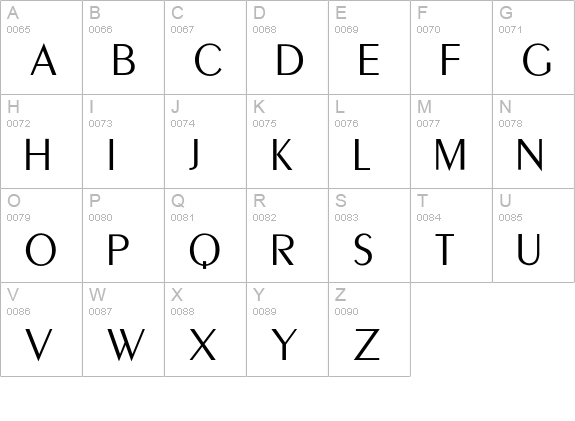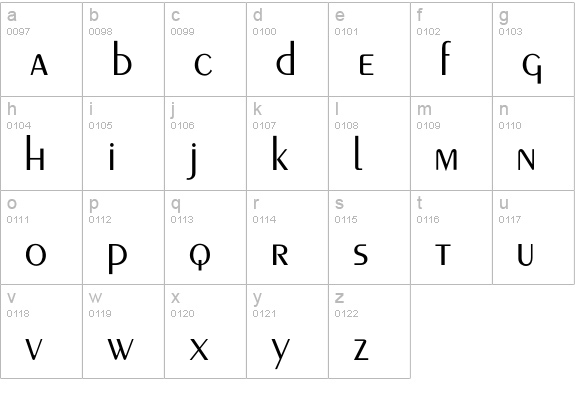
PianoLight Font Details
PianoLight font is a beautifully designed typeface that effortlessly combines elegance with simplicity. Its sleek and modern appearance makes it perfect for a wide range of design projects, from invitations and logos to website headers and book covers. Featuring clean lines and delicate curves, PianoLight font has a timeless appeal that will never go out of style. Its carefully crafted letterforms are legible at any size, ensuring that your message is conveyed clearly and effectively. One of the most appealing aspects of PianoLight font is that it is completely free. Yes, you read that right! This stunning font is freely available to download at FontsMarket.com. Whether you're a professional designer or a hobbyist, you can now have access to this remarkable typeface without breaking the bank. With PianoLight font, you can bring a touch of sophistication to your designs without sacrificing readability. Its subtle elegance adds a touch of class to any project, making it a versatile choice for a variety of creative endeavors. So why wait? Take advantage of the opportunity to download PianoLight font for free at FontsMarket.com and elevate your design game to new heights. With its timeless beauty and incredible versatility, this font is sure to become a staple in your typographic arsenal. Don't miss out on this amazing offer – start creating stunning designs today with PianoLight font.